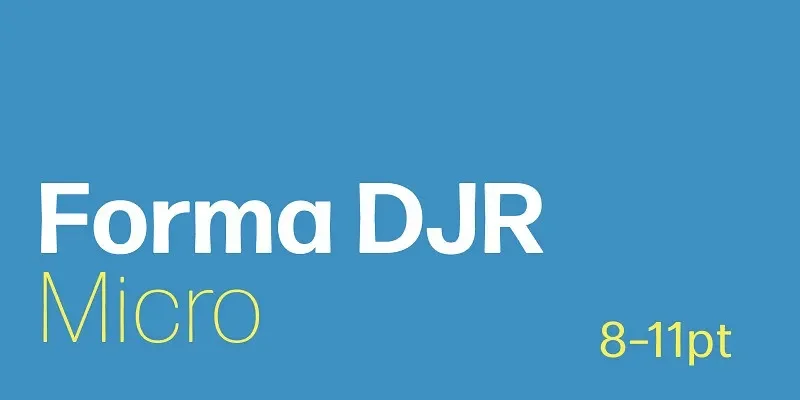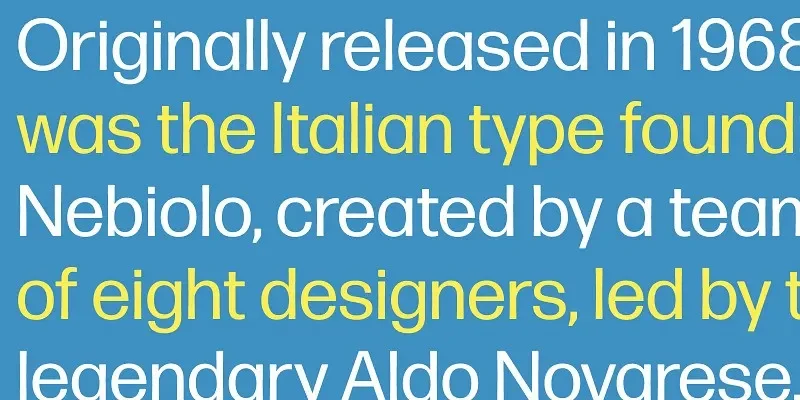
Forma DJR Micro Font Family solves readability issues at very small sizes, where many fonts lose clarity. UI labels and captions often suffer from tight spacing and closed counters.
Forma DJR Micro is a sans-serif font family by David Jonathan Ross, designed with open apertures, increased spacing, and simplified shapes. These traits support legibility in dense interfaces.